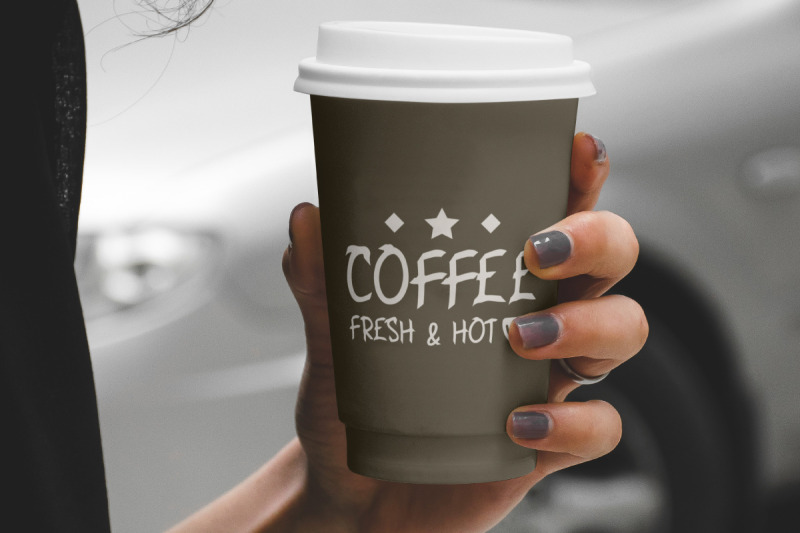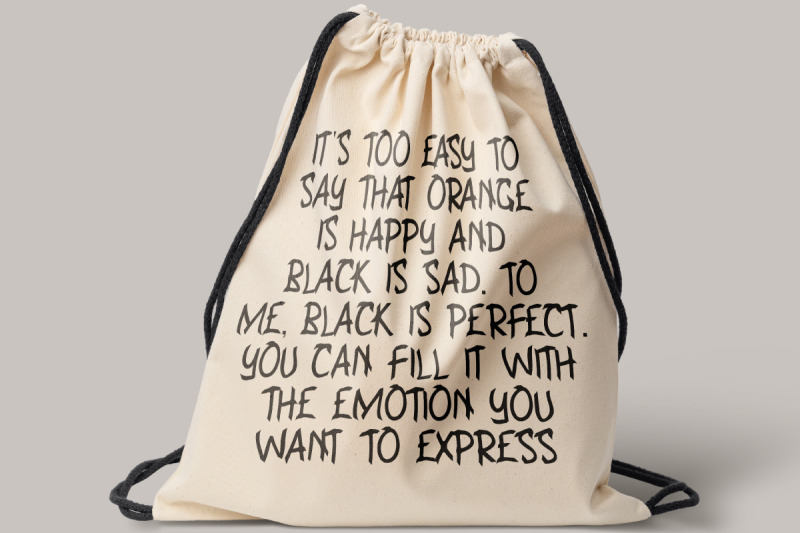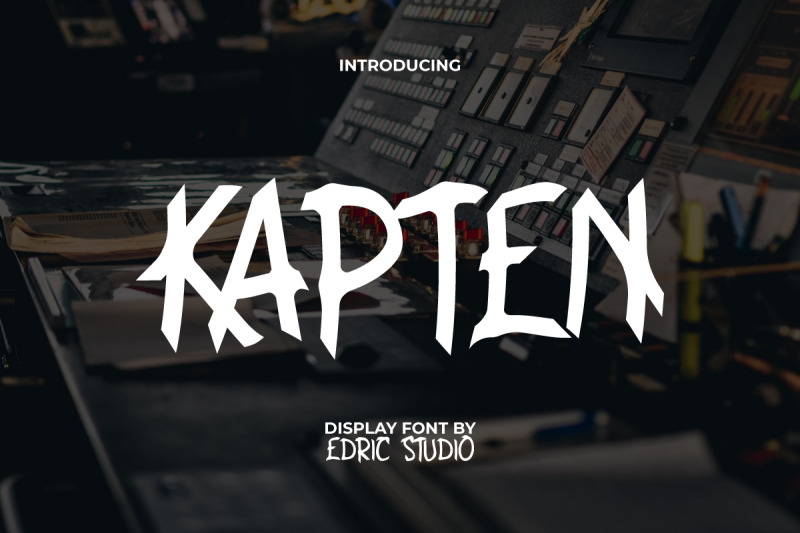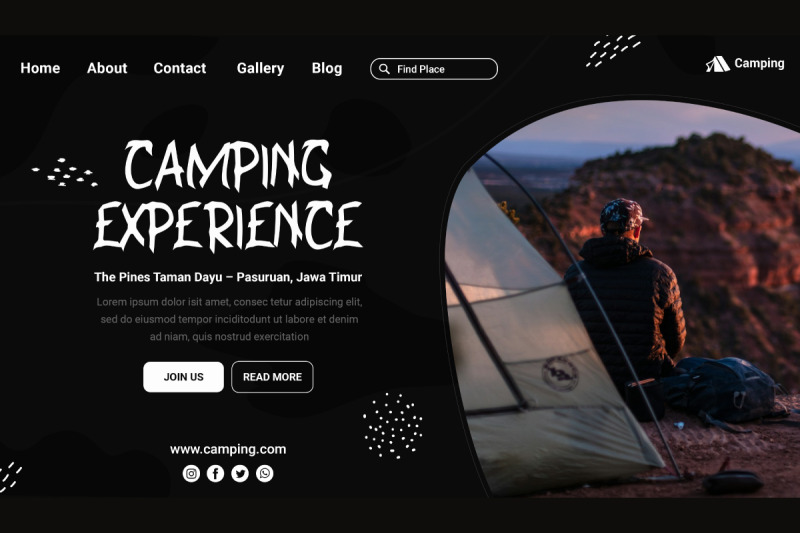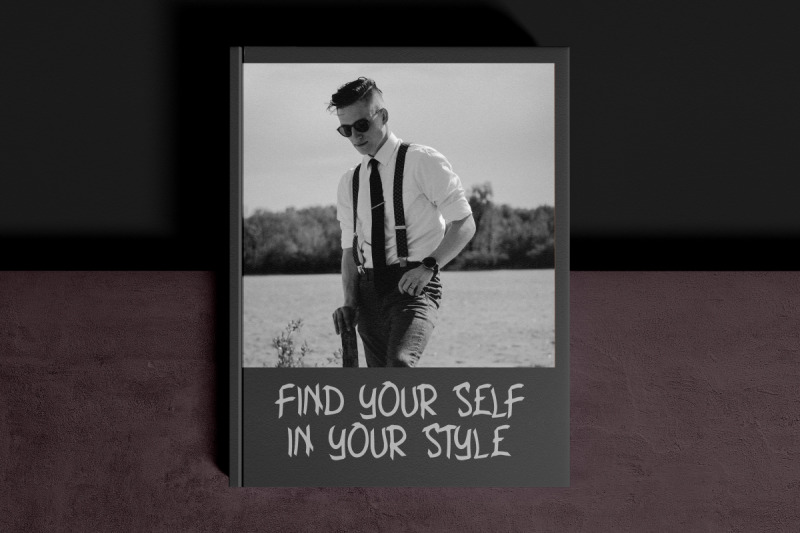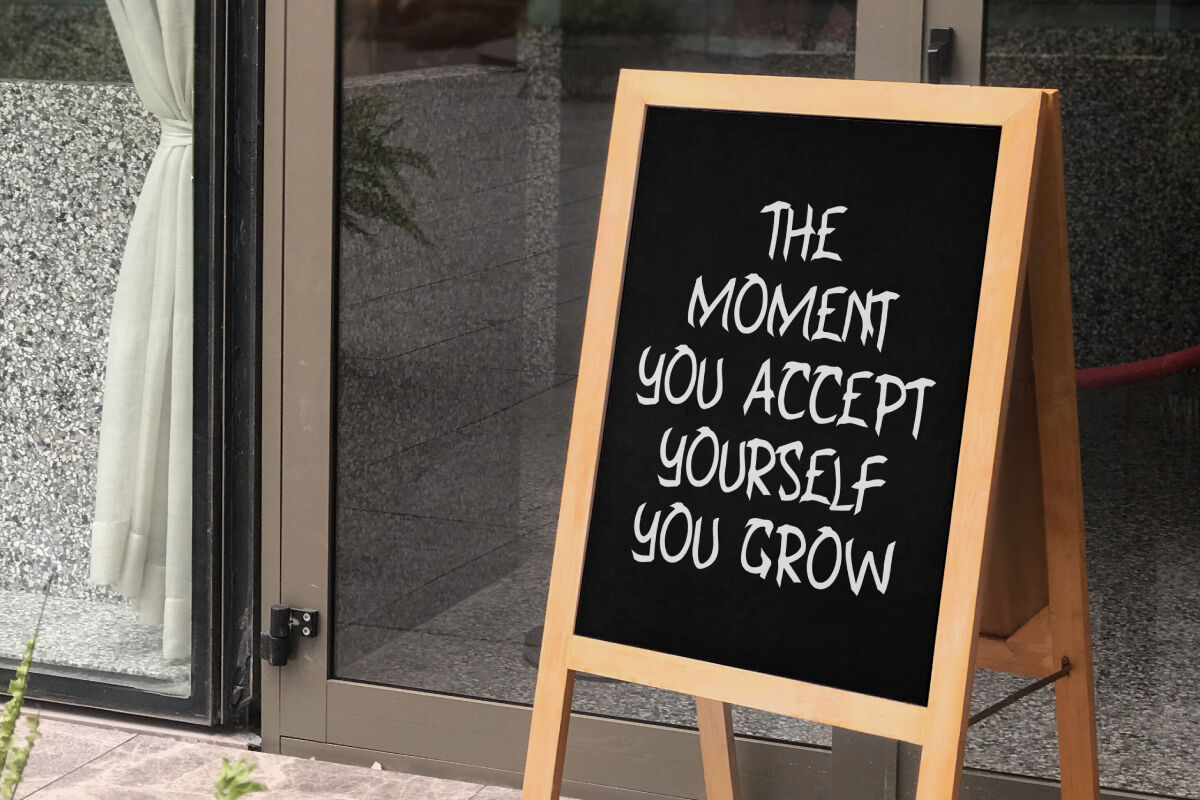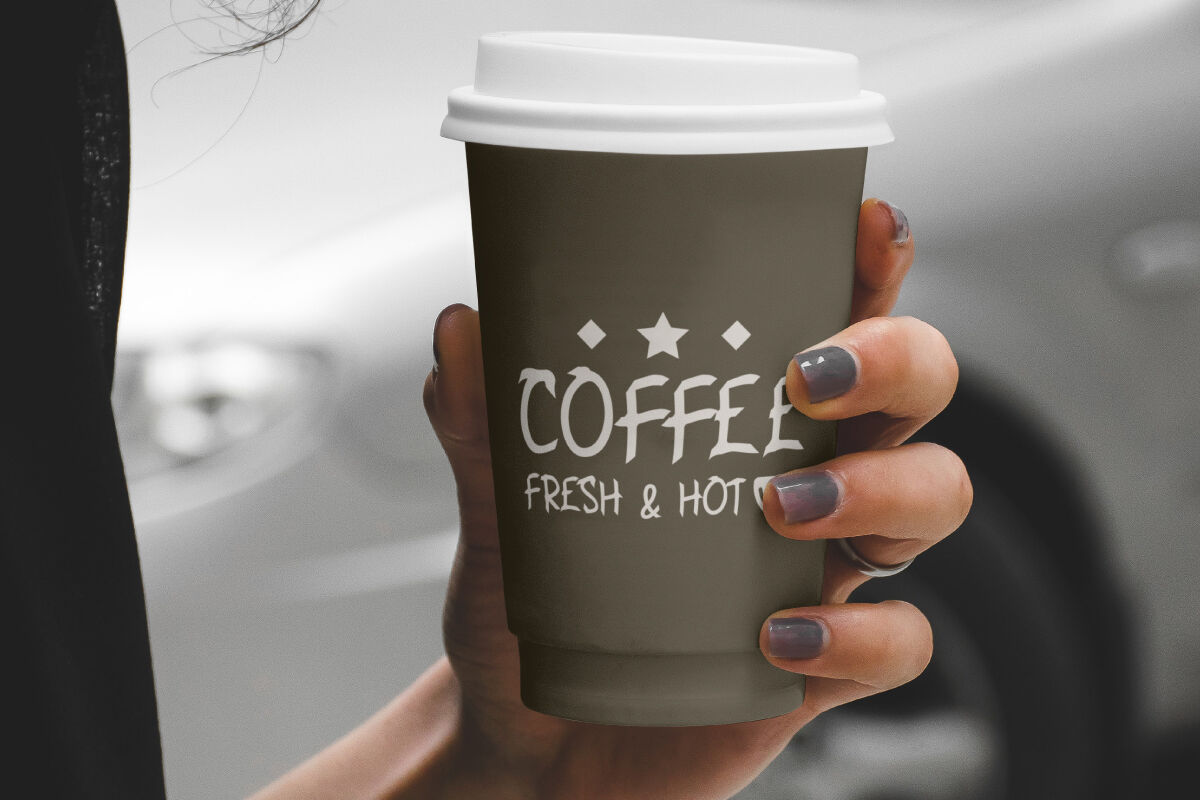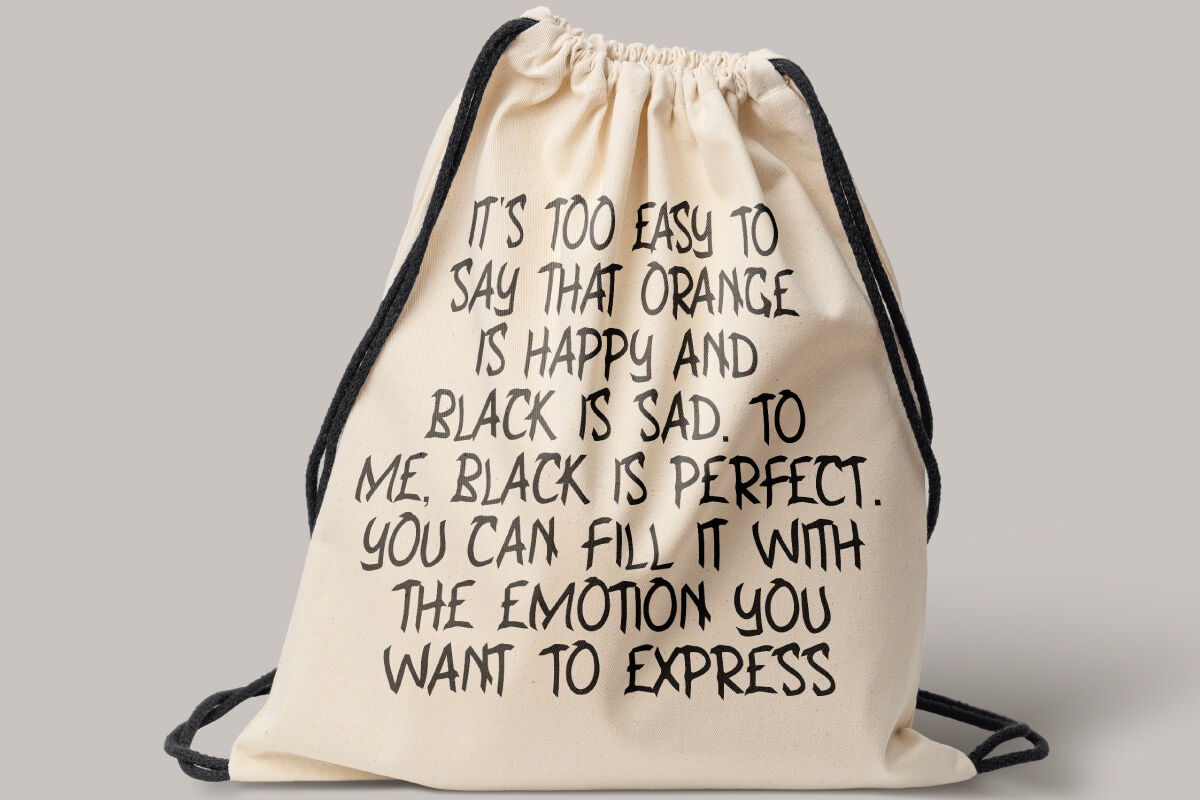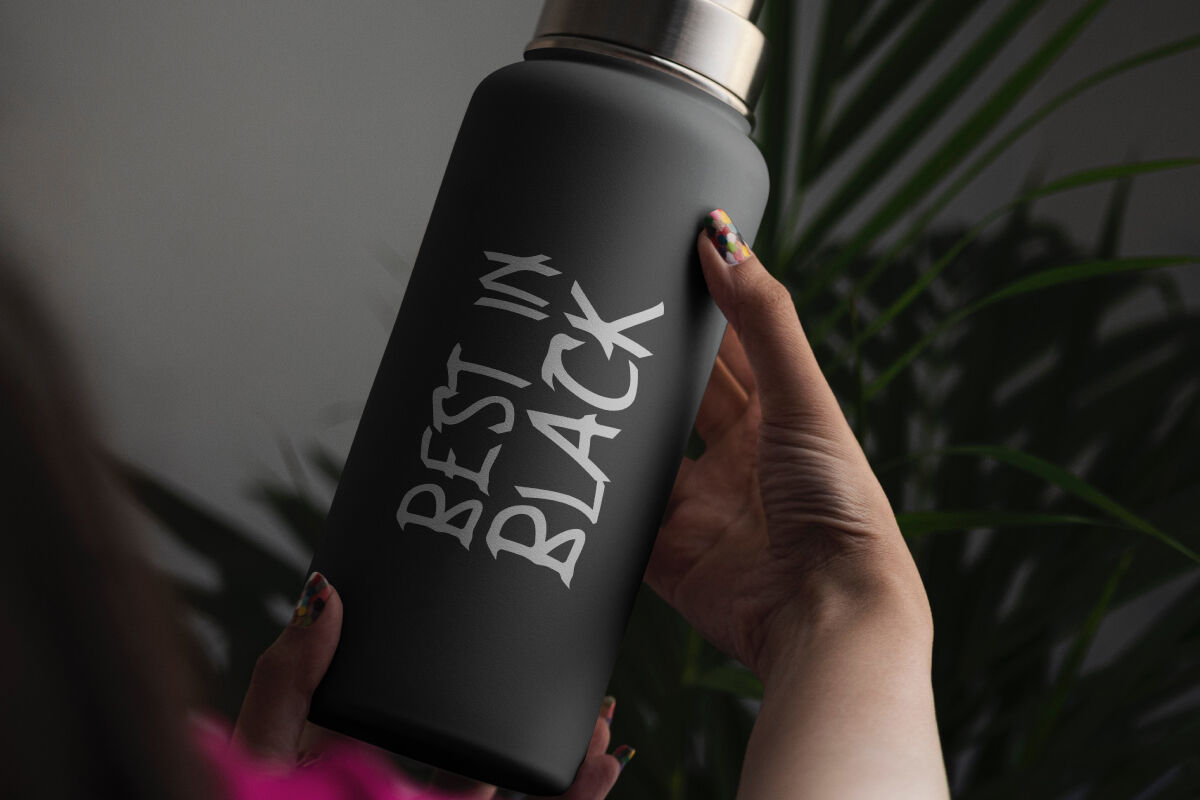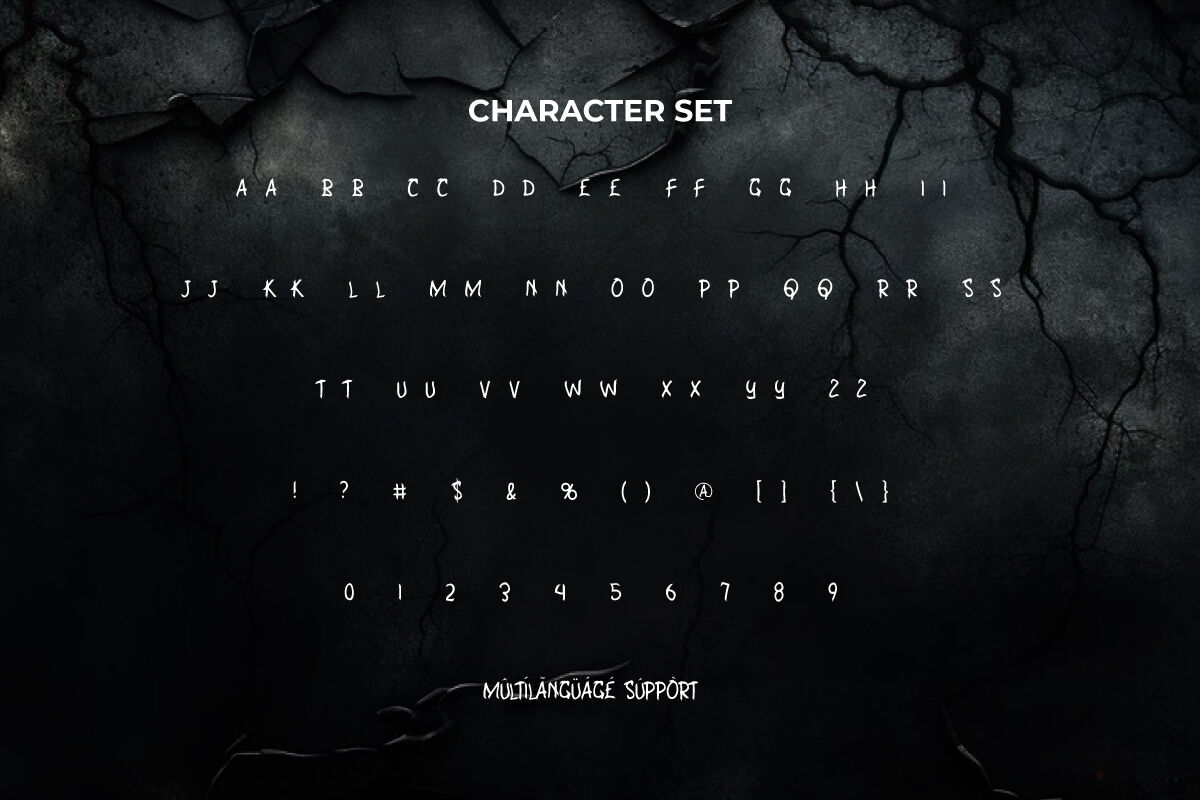
Kapten Display Font a handcrafted display typeface designed to balance mystery, strength, and refinement. With its ALL CAPS character set, this font delivers power and clarity, making it the perfect choice for designers who want their projects to stand out.
Kapten Blackletter Display Font includes a complete set of ALL CAPS for Uppercase and Lowercase Letters, Numbers, Punctuation, and Symbols. Carefully designed to every detail for ease of use and easy to read character display. Exclusively exists to transform raw energy into new creativity making it the right choice for whatever your project. Is perfect for apparel, automotive vehicles, band, cafeteria, crockery, e-sports, event organizer, fashion, film, movie, outdoor sports equipment, printing, publishing, sports, sportwear, etc.
Kapten Font a playful typeface with unique decoration in each character. Combine different characters for a bespoke, handcrafted feel. It’s tested to work well in the Adobe Apps (Illustrator, Adobe InDesign, Adobe Photoshop) even work on Microsoft Word. Thanks to PUA encoding, every glyph and alternate character is accessible for custom creative control.